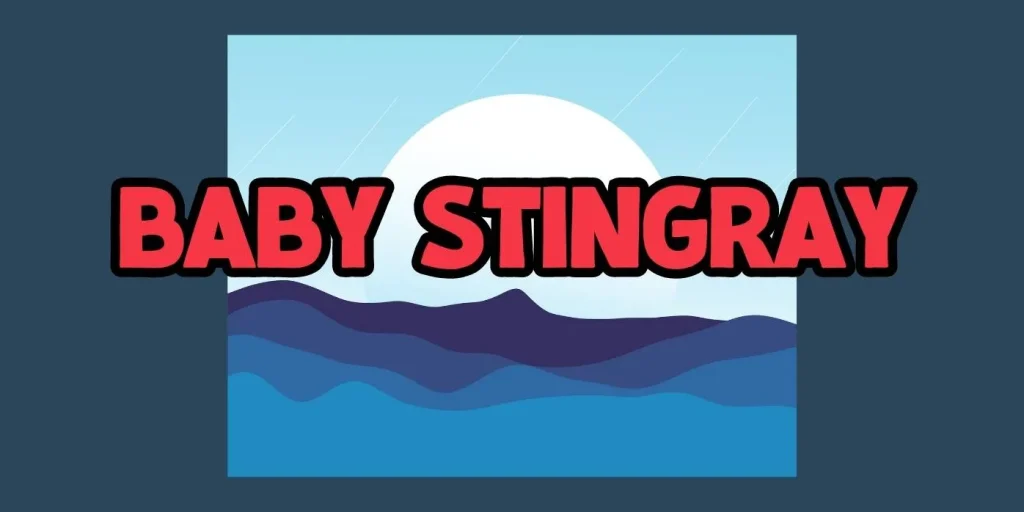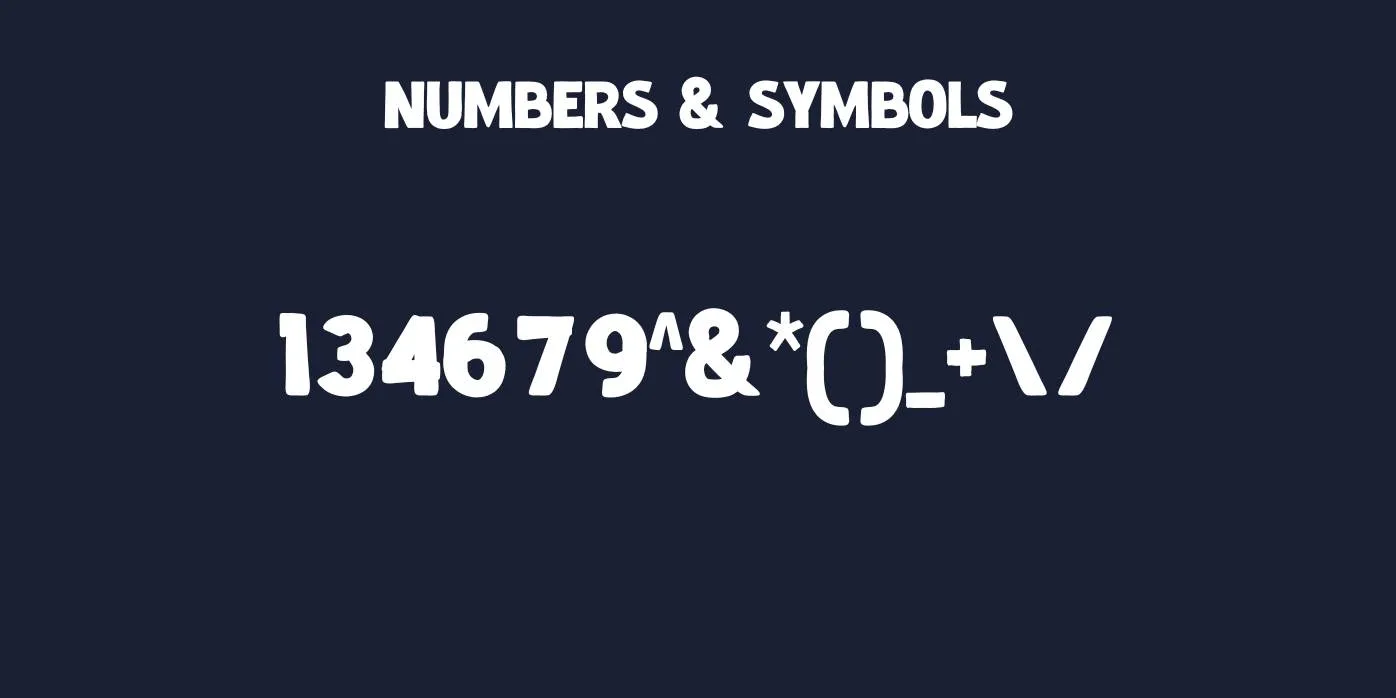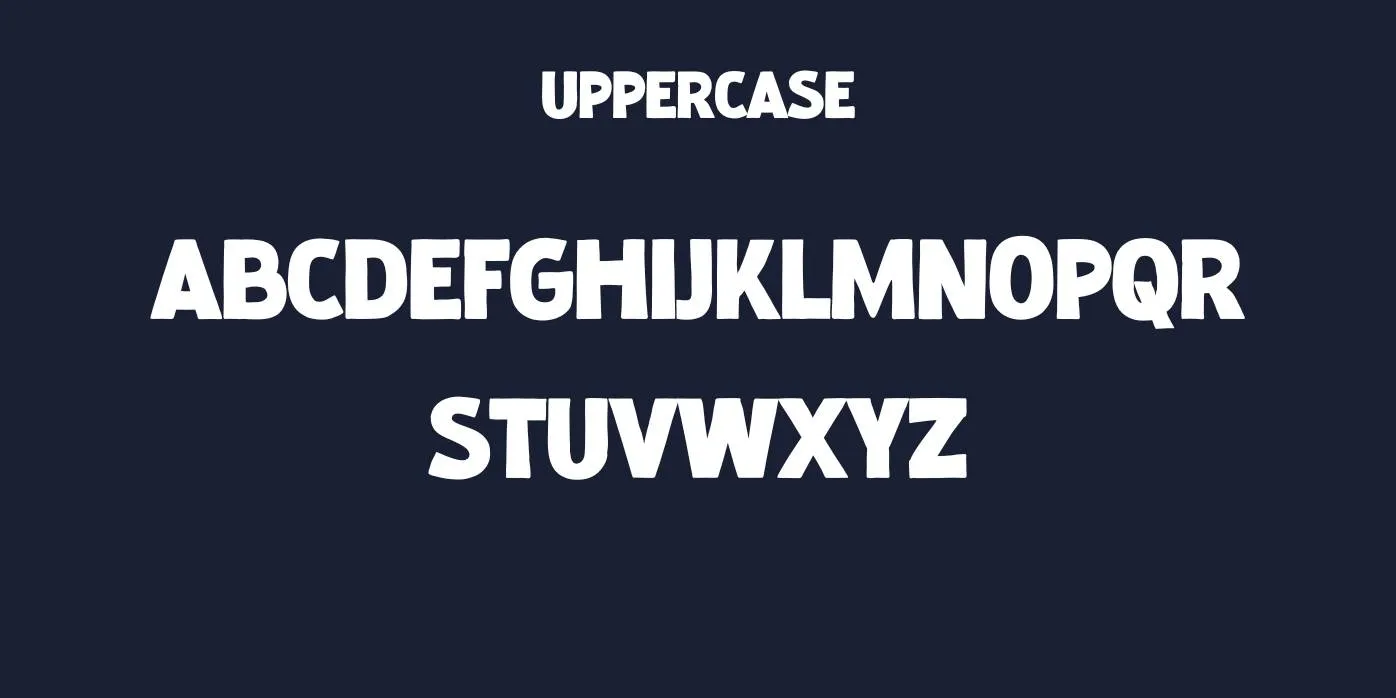
Baby Stingrays Font
In the article, we are going to tell you about a bold and stylish typeface that can make your project more legible, contemporary, and eye-catchy. This typeface is named “Baby Stingrays Font”. It is a strong bold display typeface that was formed by Anang F & Malik Wsn and released by Gassstype Studio in 2021.
This typeface drives in TTF and OTF features along with single-weight Regular, and it also includes 174 glyphs and 243 characters consisting of capital letters, small letters, figures, punctuation marks, symbols, signs, fractions, ligatures, multilingual, accents, alternate characters, mathematical operators, and special characters.
How to Utilize Baby Stingrays Font?
This typeface comes with a retro and amazing feel that is perfect for unique and cool design projects, this typeface looks perfect in large and body text projects/applications. This typeface is flawless for bolder logos, titles, captions, headlines, headers, footers, newspapers, marketing, publicity, and business projects.
Baby Stingrays Font Variations
This typeface is available in regular style only.